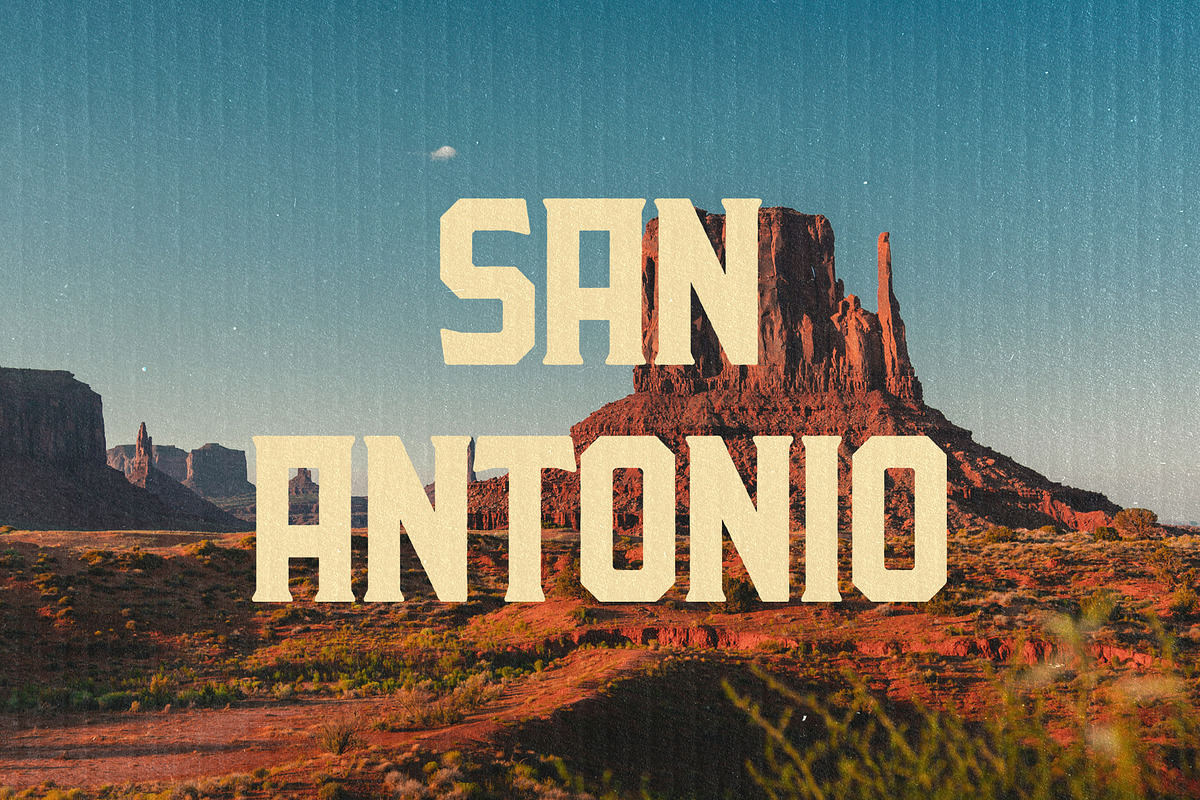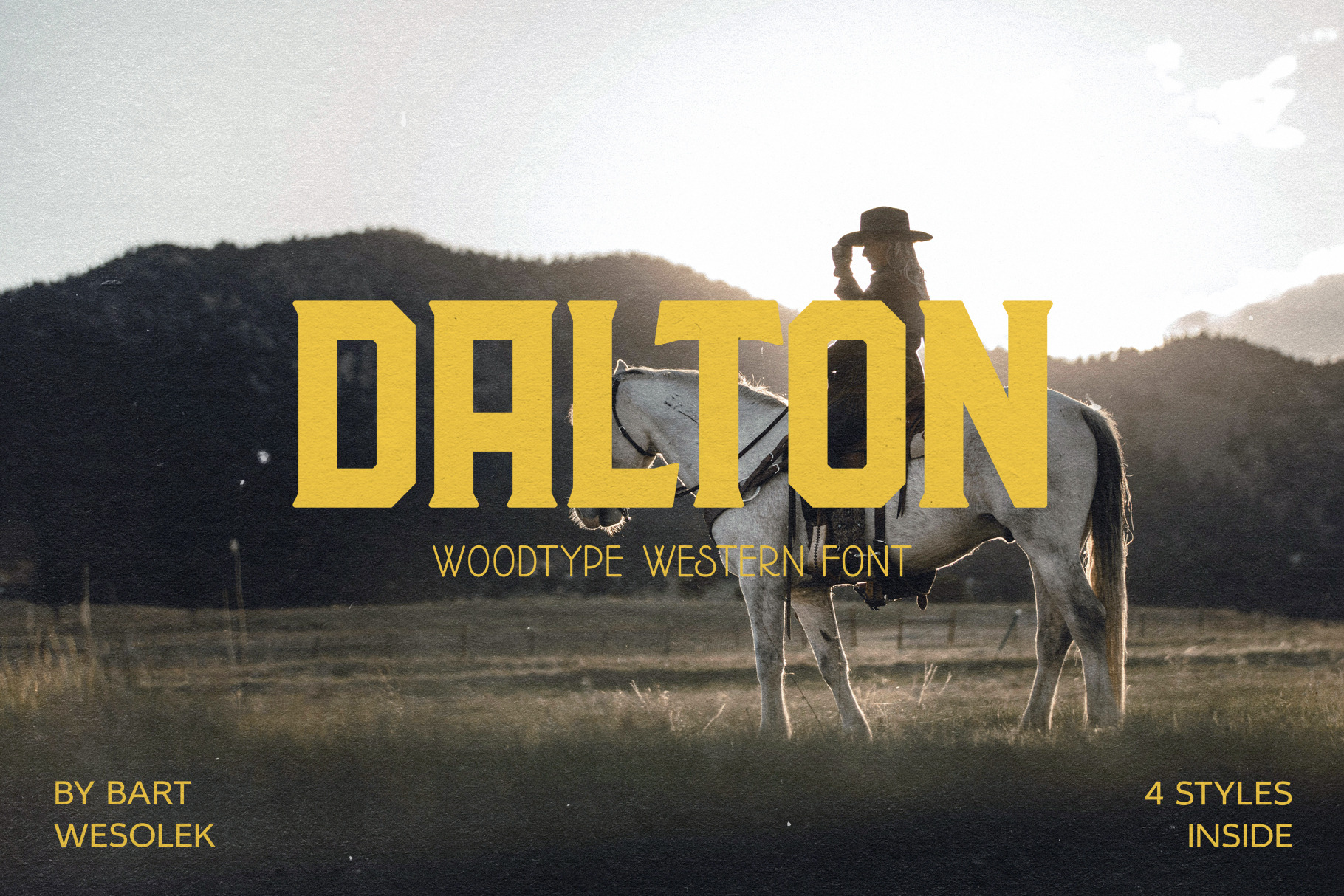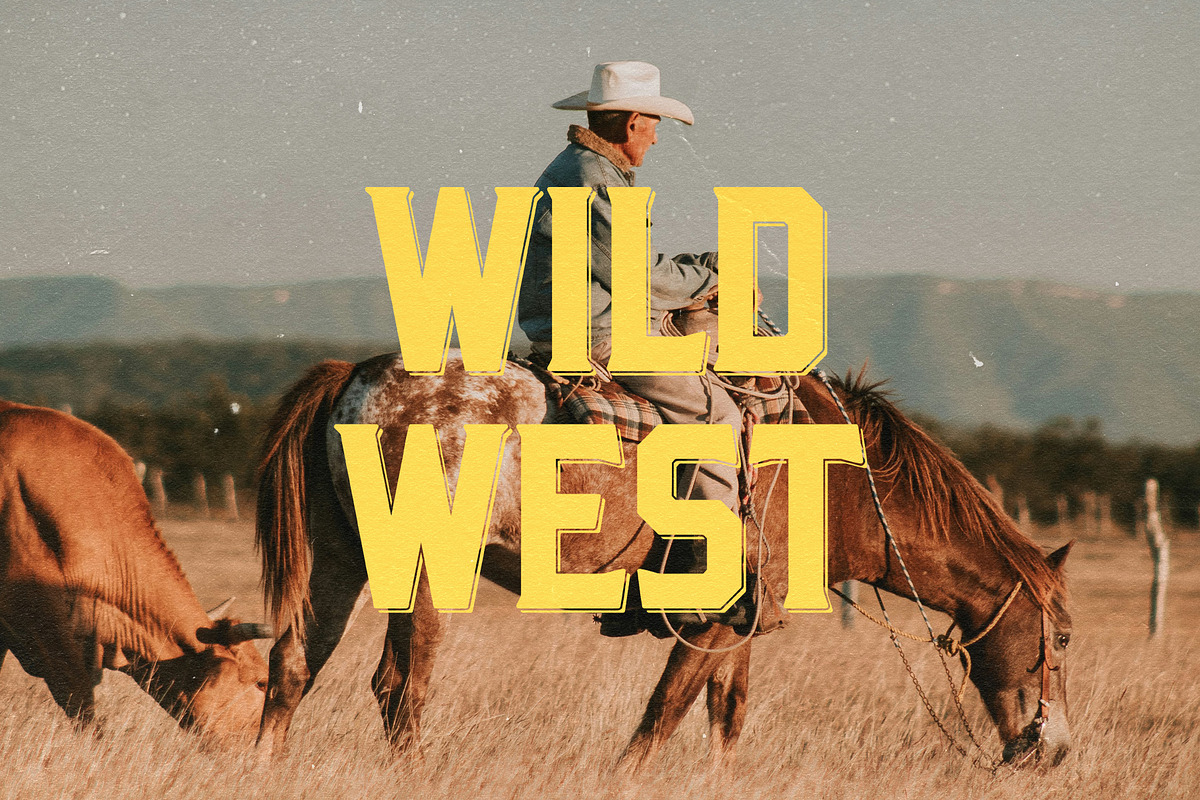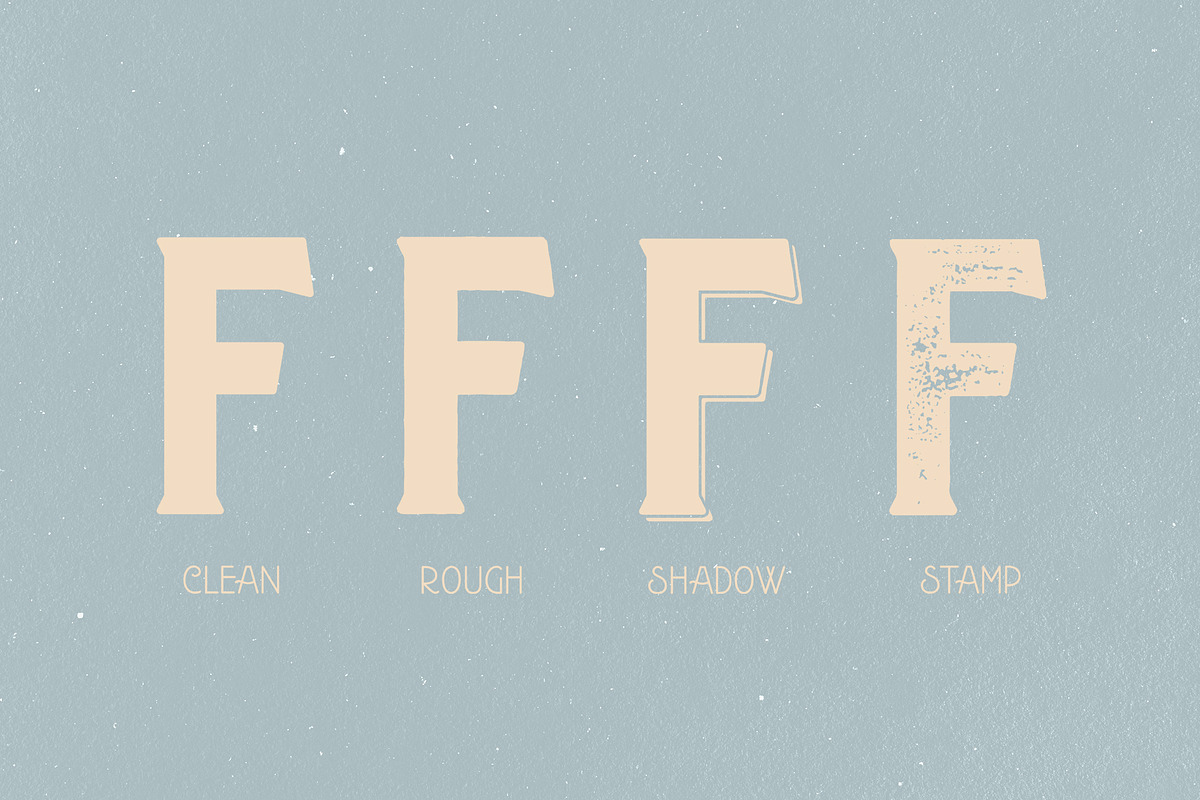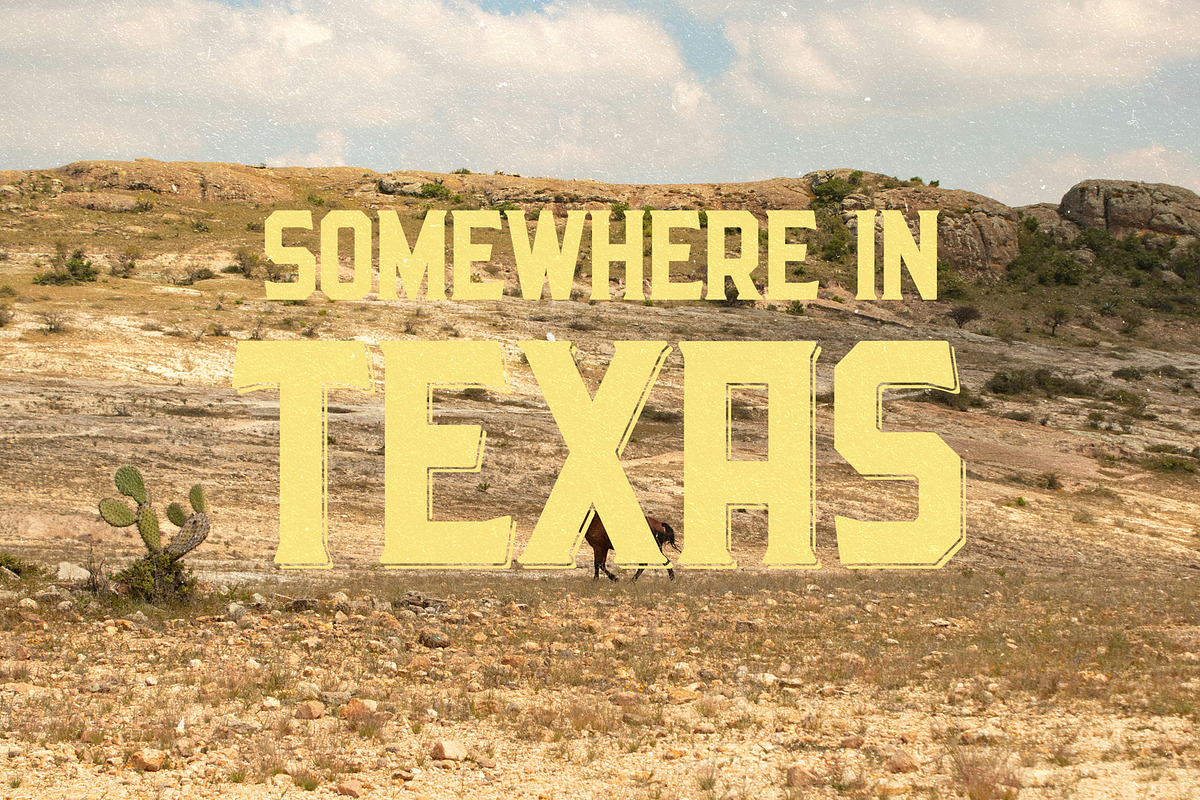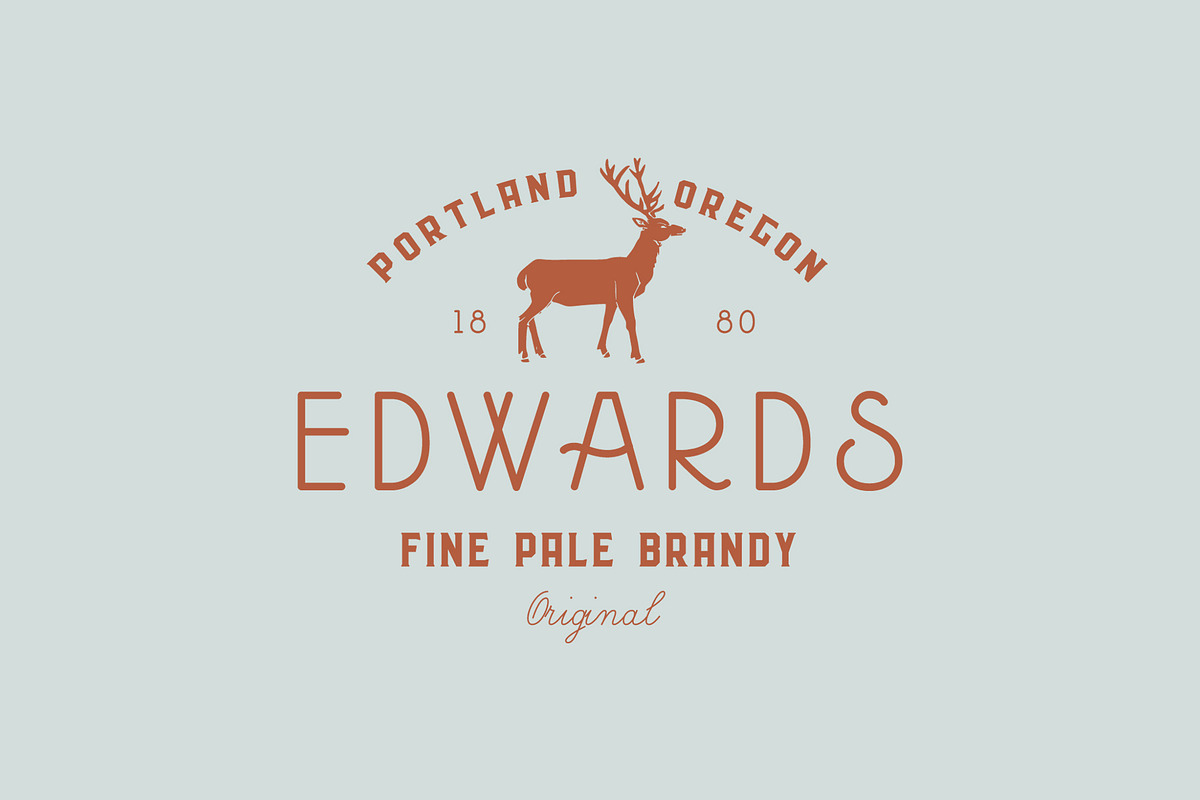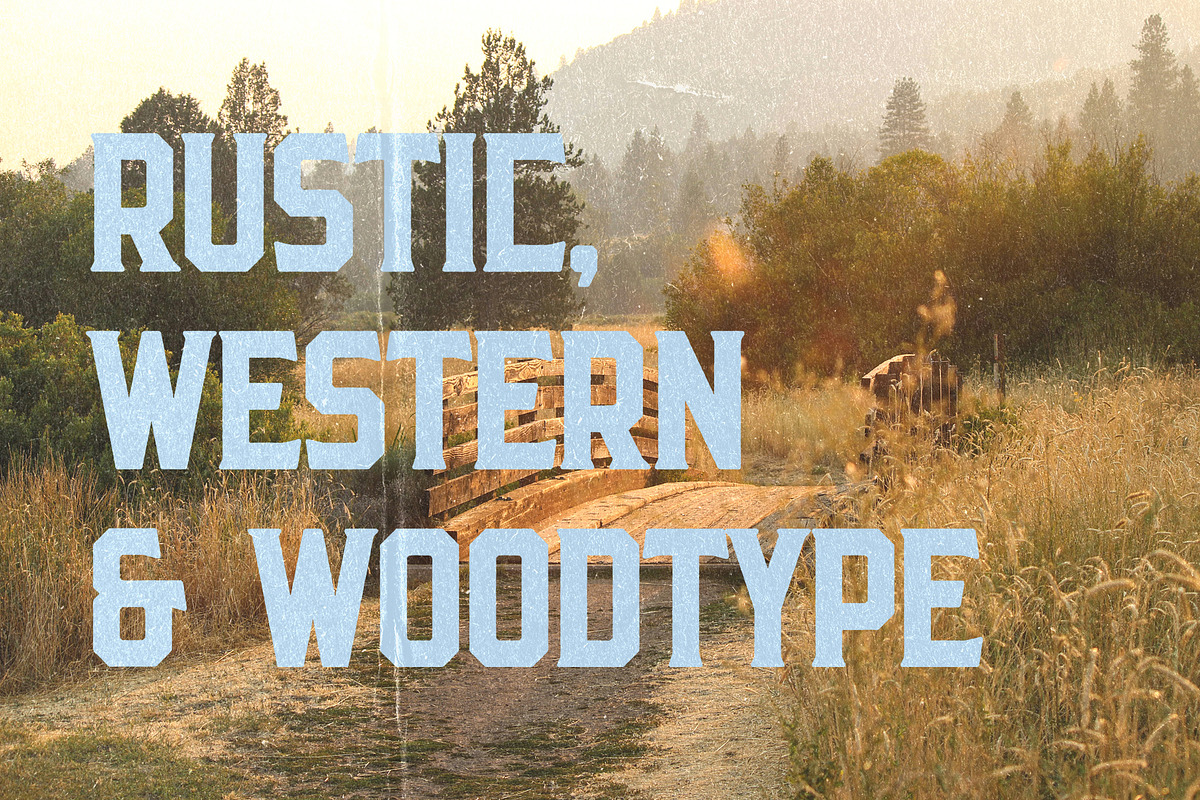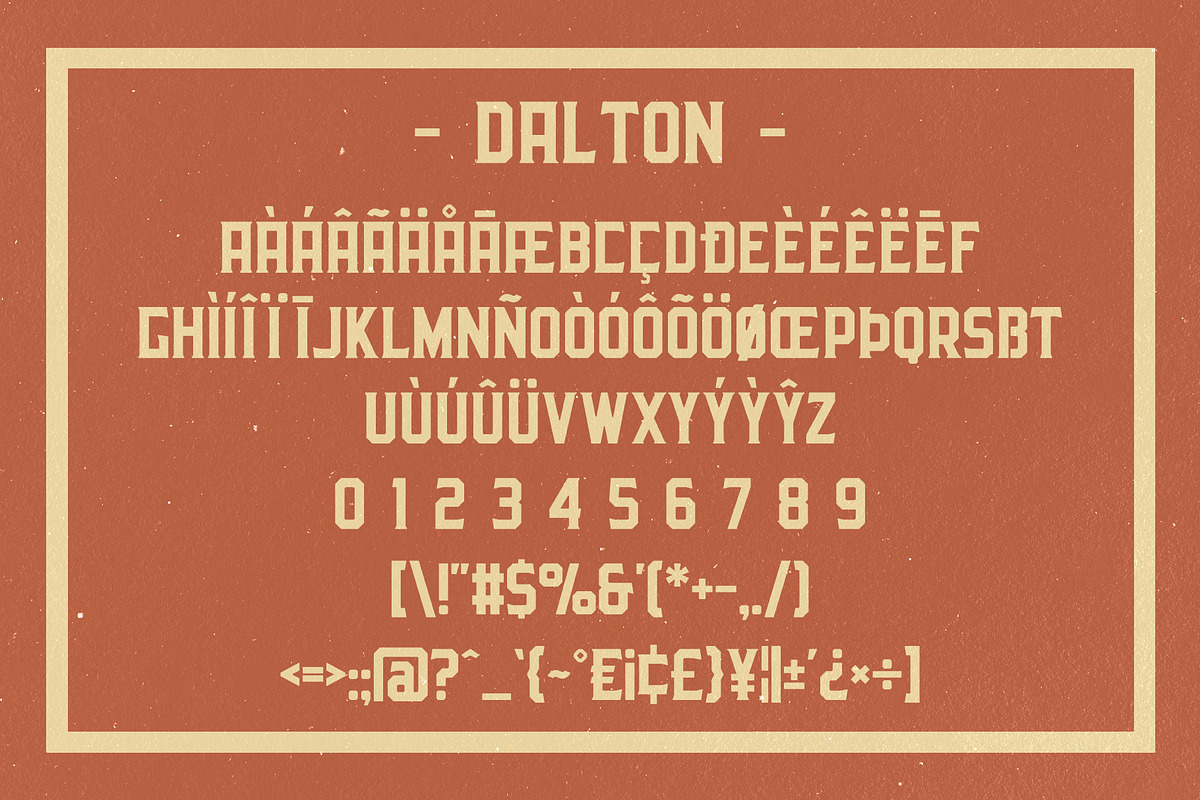
Dalton WoodType Font
Dalton is a bold, no-nonsense wood-type inspired uppercase font that effortlessly balances vintage charm with contemporary clarity. Its solid, heavy letterforms and clean lines make it an outstanding choice for signage, posters, logos, and packaging alike. With its extended Latin character set and built-in alternates, you have flexibility for multilingual design and creative customization. Ideal for high-impact headlines, editorial titles, merchandise prints, and branding projects. Pairs beautifully with textured backgrounds (like rustic paper or halftone overlays), slab or sans-serif companions, and layered color effects. Bring bold attitude and classic typographic roots to your designs with Dalton WoodType.
Dalton comes with 4 styles:
- Clean
- Rough
- Shadow
- Stamp
Dalton WoodType Font is an outstanding display font that perfectly captures a bold, vintage Western aesthetic while maintaining a clean, professional look. The heavy uppercase lettering, strong structure, and wood-type-inspired design give it an authentic, rugged, cowboy with a subtle mix blend of modern/vintage style — making it a must-have for Western-themed projects. 10/10, highly recommended! 🤠